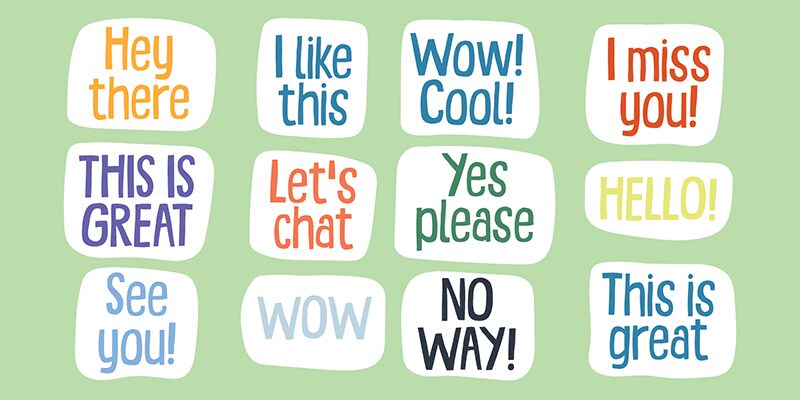
Lemon Punch DEMO
Lemon Punch font by Pizzadude is a modern condensed cartoon display typeface with expressive handwritten aesthetics. Its lively characters have a casual appearance that is distinctive from all the angles. Anyone who knows how particular children can be with their taste will understand what an accomplishment this free casual font achieves.
Use this type in games, cartoons, apps, kids' toys, animation movies, schools-related designs, comic covers, board games cover art designs, or books for children. Other ideas for use are packaging of food products and sweets that are for little boys and girls.